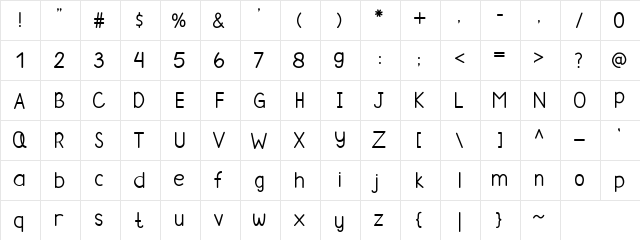
Anisa Sans Regular
| Foundry | Nur Anisa |
| Designer | Nur Anisa Dwi Anggita |
Anisa Sans takes a measured approach to typography — its balanced proportions and neutral character make it a reliable workhorse for both digital and print work.
Pro Tip: Use Anisa Sans in both headline and body roles to test its range before committing to a single application.